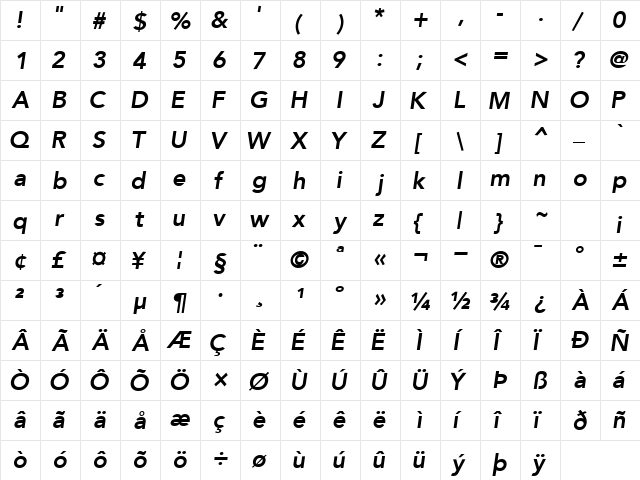
ExpoSSK Bold Italic
Design Context for ExpoSSK Typeface
ExpoSSK is a composed and adaptable typeface that performs quietly and consistently across a wide range of design contexts. The slanted form adds forward momentum and visual energy. The heavy weight commands attention and anchors typographic hierarchies.
Pro Tip: Use ExpoSSK for emphasis, pull quotes, and subheadings where its slanted energy can add rhythm to the layout.